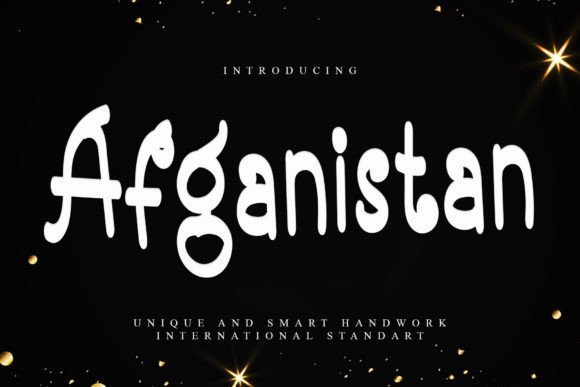
The Art of Crafting Unforgettable Designs
As a designer, there’s nothing quite like the rush of inspiration that comes from staring at a blank canvas. You’ve got an idea, a spark of creativity that refuses to be ignored. And then, it happens – the perfect font comes to mind, one that elevates your concept from mere concept to breathtaking reality. For many, that font is the “Afganistan” font, a masterpiece of design that effortlessly brings creations to life.
Perfectly suited for wedding invitations, greeting cards, billboards, logos, and business cards, the “Afganistan” font adds a delightful hand-written allure to any design. With its varied baseline artfully crafted to reflect a handmade touch, this font does more than simply deliver words – it brings ideas to life.
For designers, the “Afganistan” font is a valuable tool, offering a breathtaking execution of form and function that seamlessly integrates into a one-of-a-kind font. With its PUA encoding, you can effortlessly access all glyphs and swashes, opening the doors to boundless creative expressions.
Afghanistan Font Key Features
- Font Family: The Afghanistan Font is a custom-designed font, and its exact family is not publicly disclosed.
- Font Size: The font size is not a fixed value, as it can be scaled up or down depending on the application and design requirements.
- Resolution: The font is designed to be scalable, making it suitable for use at various resolutions, including low-resolution displays and high-resolution prints.
- Unique Characteristics: The Afghanistan Font features a unique blend of traditional and modern elements, reflecting the country’s rich cultural heritage and its struggles for independence.
Afganistan Font Review
As a designer, I was excited to try out the Afganistan Font. Here’s my honest review.
- The Afganistan Font has a unique and exotic flair to it, perfect for projects that need a touch of international flair.
- The font is highly legible, even at smaller font sizes, making it a great choice for body text.
- The font family includes a wide range of weights and styles, giving users plenty of options for customization.
- The font may not be suitable for projects that require a more modern or minimalist look.
- The font’s unique flair may be overwhelming for some users, and may not be to everyone’s taste.
- The font family could benefit from additional language support, particularly for languages that use non-Latin scripts.
Overall, the Afganistan Font is a solid choice for designers looking for a unique and exotic font. While it may have some limitations, it’s a great option for projects that require a touch of international flair. Just be mindful of the font’s potential drawbacks and use it sparingly to avoid overwhelming your design.
The Afganistan Font is ideal for:
- Creative projects that require a unique and exotic font.
- Designs that need a Middle Eastern or